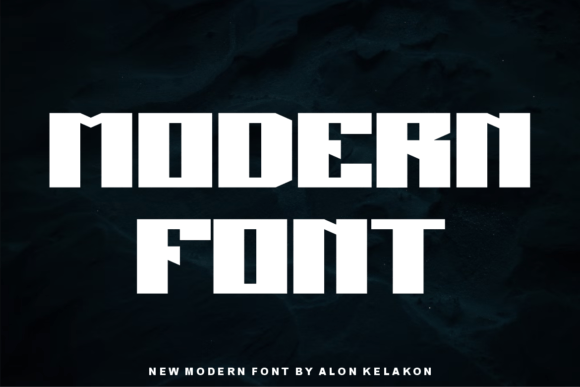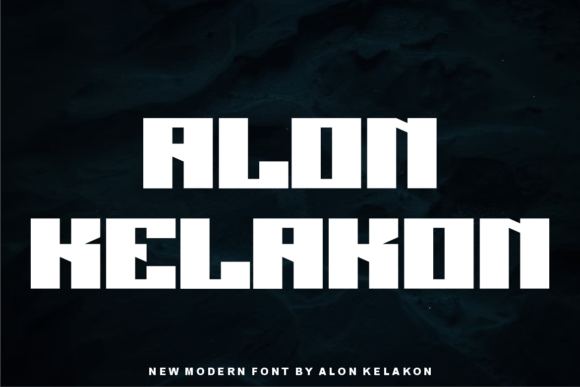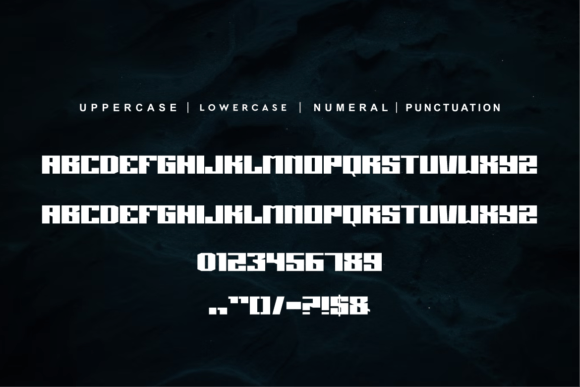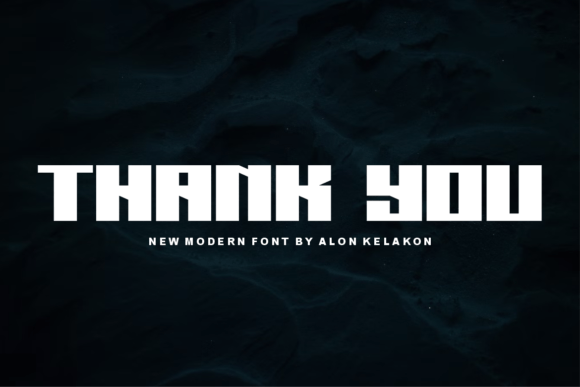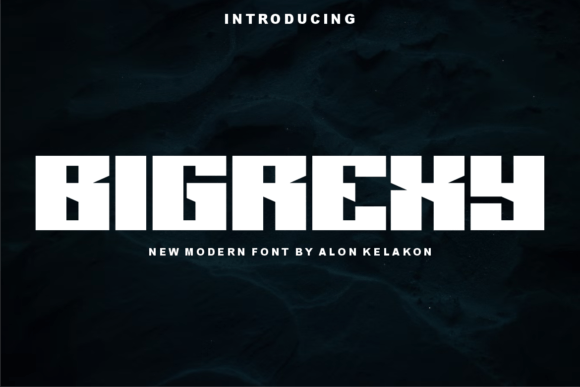
Introducing Bigrexy Font: The Ultimate Display Font for Creative Designs
Are you tired of using the same old fonts for your designs? Look no further than Bigrexy Font, a fun and interesting display font that’s perfect for creating eye-catching logos, branding, and posters. With its unique and beautiful touch, Bigrexy Font is sure to make your design come alive!
The Perfect Choice for Creative Designs
Bigrexy Font is a display font that’s designed to make a statement. Its bold and playful style makes it the perfect choice for designers and crafters who want to add a touch of personality to their work. Whether you’re creating a logo, branding materials, or a poster, Bigrexy Font is the perfect choice.
What Sets Bigrexy Font Apart
So, what sets Bigrexy Font apart from other fonts? For starters, every letter has a unique and beautiful touch that adds a level of sophistication and elegance to your design. The font is also highly versatile, making it perfect for a wide range of design applications.
Key Features of Bigrexy Font
- Unique and Beautiful Touch: Every letter in Bigrexy Font has a unique and beautiful touch that adds a level of sophistication and elegance to your design.
- Highly Versatile: Bigrexy Font is perfect for a wide range of design applications, from logos and branding to posters and more.
- Fun and Interesting: Bigrexy Font is a fun and interesting display font that’s perfect for designers and crafters who want to add a touch of personality to their work.
- Easy to Read: Despite its bold and playful style, Bigrexy Font is easy to read, making it perfect for designs that require a clear and concise message.
Design Ideas with Bigrexy Font
Bigrexy Font is a versatile font that can be used in a wide range of design applications. Here are a few ideas to get you started:
- Logos and Branding: Use Bigrexy Font to create a unique and memorable logo for your business or brand.
- Posters and Flyers: Bigrexy Font is perfect for creating eye-catching posters and flyers that grab attention.
- Social Media Graphics: Use Bigrexy Font to create social media graphics that stand out from the crowd.
- Business Cards: Add a touch of personality to your business cards with Bigrexy Font.
Tips and Tricks for Using Bigrexy Font
Here are a few tips and tricks for using Bigrexy Font:
- Use it Sparingly: Bigrexy Font is a bold and playful font, so use it sparingly to avoid overwhelming your design.
- Pair it with Other Fonts: Bigrexy Font pairs well with other fonts, so experiment with different font combinations to find the perfect look for your design.
- Experiment with Colors: Bigrexy Font looks great in a variety of colors, so experiment with different colors to find the perfect look for your design.